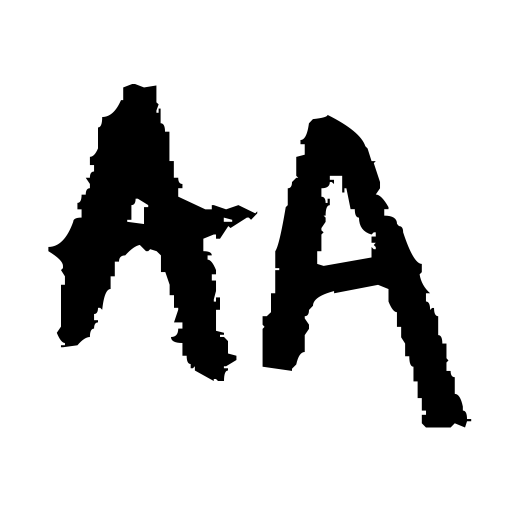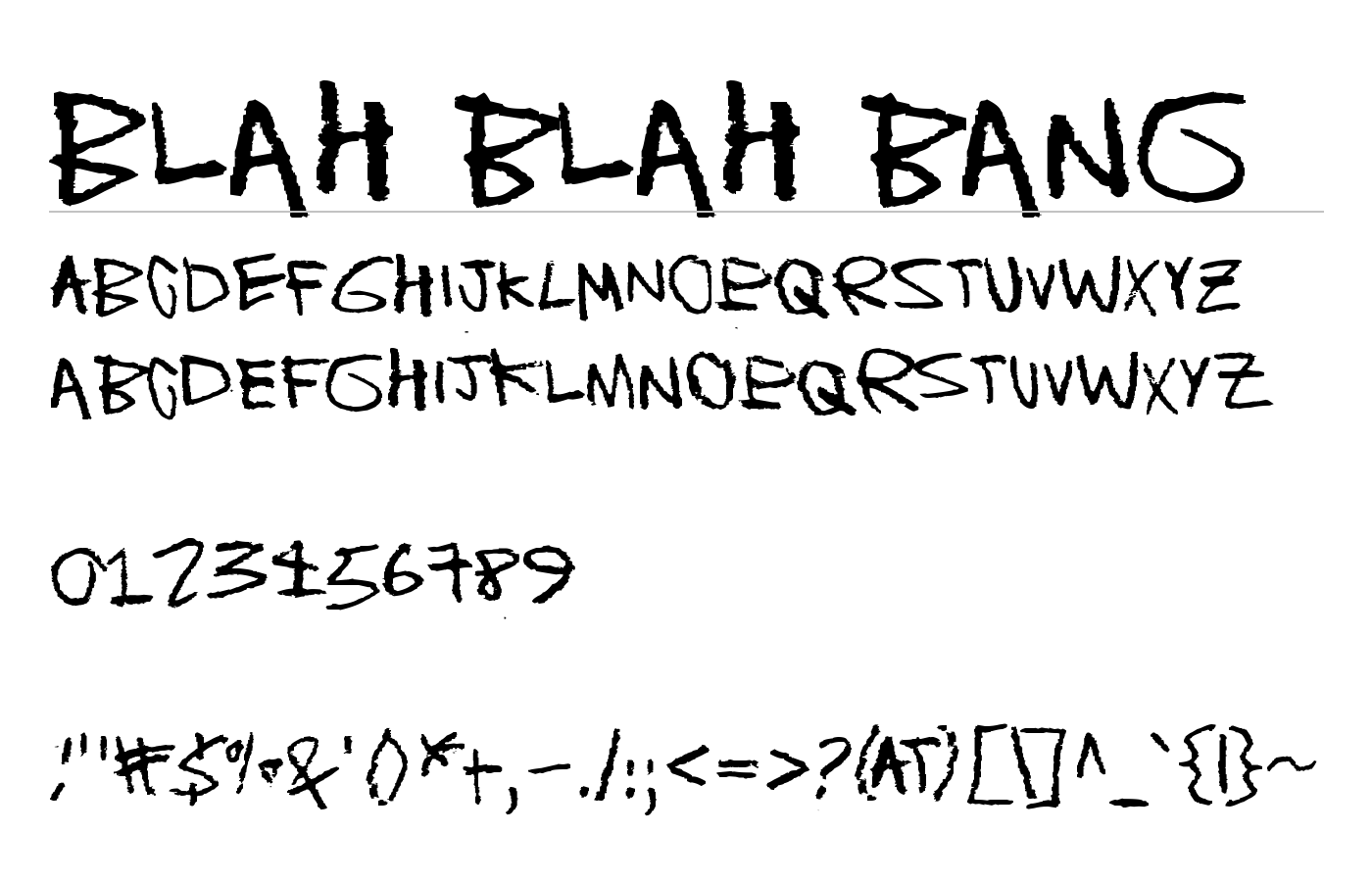
Blah blah bang Font is a playful, hand-drawn sans serif typeface with rough, textured strokes that give it an informal, energetic feel. Its uneven letterforms and casual style make it perfect for creative projects, youthful branding, or any design that wants to evoke a spontaneous, fun personality. This font works well in headlines, posters, and packaging where a bold, quirky look is desired.
Blah blah bang Font
About Blah blah bang Font
| Font family | Blah blah bang Font |